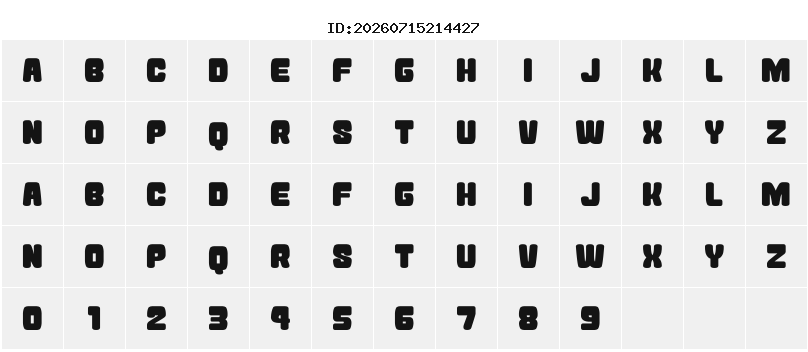
• Font Name: Atama Simple
• Full Font Name: Atama Simple
About Atama Simple.ttf
Atama Simple.ttf is a modern, elegant sans-serif font designed for ultimate readability and visual harmony. Perfect for branding, headlines, web design, and print materials.